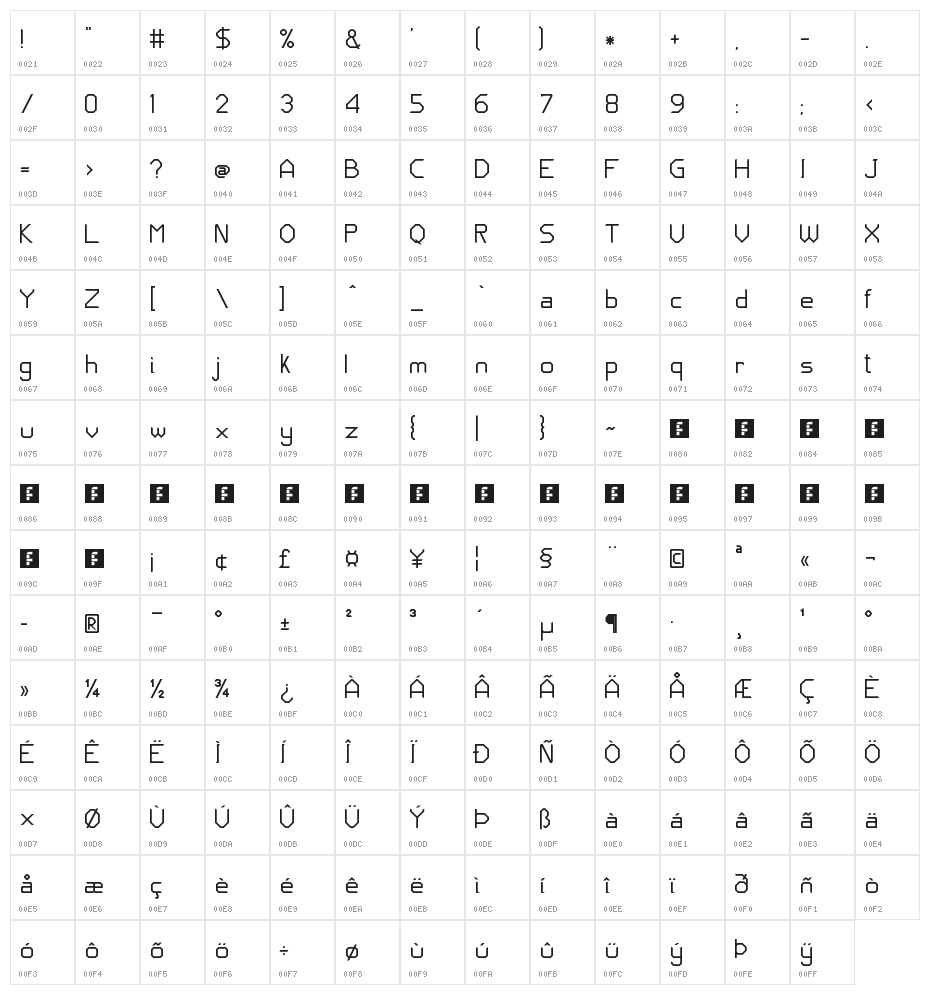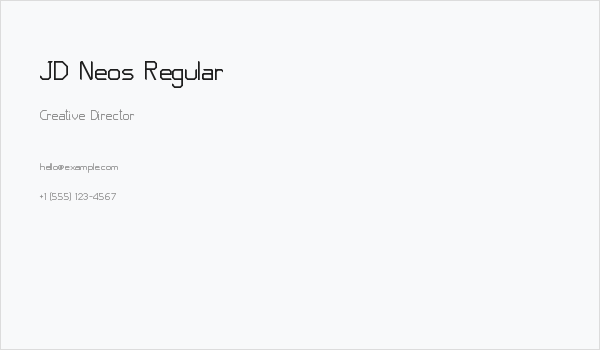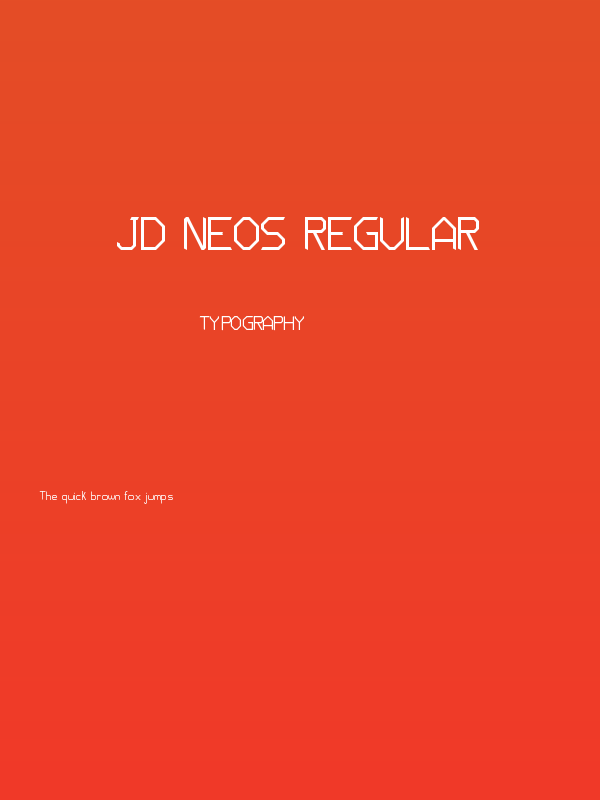
JD Neos Regular Font
JD Neos Regular Description
This font features a geometric and angular design, characterized by sharp edges and a modern aesthetic. The uppercase and lowercase letters maintain a consistent style, with a unique blend of straight lines and subtle curves. The numerals are distinct and align well with the overall design, ensuring readability. Special characters are crafted with the same attention to detail, making them suitable for various applications. The font's structure is clean and minimalistic, offering a futuristic feel that is both eye-catching and versatile.
| Use Case | Logos, Headlines, Digital Interfaces |
| Proposed Projects | Ideal for technology branding, modern web design, futuristic posters, and digital interfaces. |